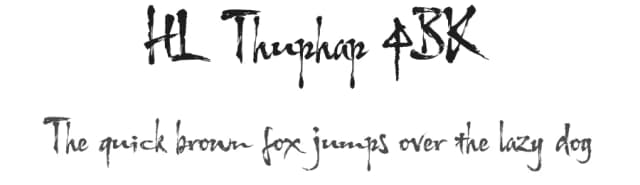
About HL Thuphap 2BK Font
HL Thuphap 2BK is a script & handwritten font designed by HungLan Design. It includes 173 glyphs, a regular weight, TTF (TrueType) format, and 171 languages. HL Thuphap 2BK is free to download; check the license details on this page before commercial use. Script & handwritten fonts like HL Thuphap 2BK work best for wedding invitations, greeting cards, signatures, and elegant branding.
HL Thuphap 2BK Font is a script font that shines as a display or heading face. Pair it with a clean sans-serif or serif font for body text β the contrast creates a clear hierarchy while the two styles stay balanced and easy to read.
HL Thuphap 2BK Font
HL Thuphap 2BK Font is a script handwritten typeface by HungLan Design, ideal for logos, invitations, branding, and creative projects.